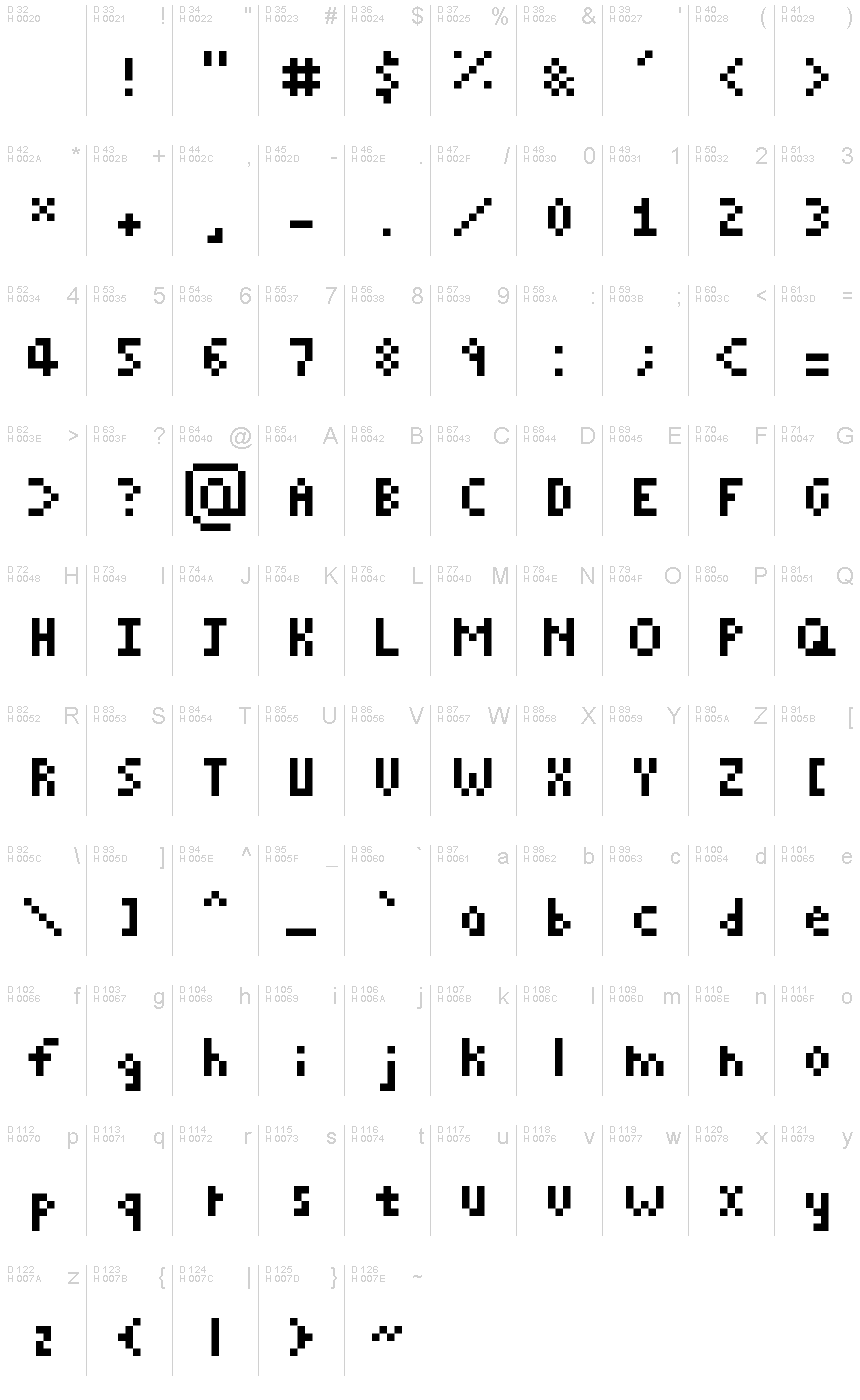
Pixelated Regular
Pixelated, a captivating bitmap font designed by Greenma201, exudes a distinct pixelated aesthetic that immediately captures attention. Its condensed width and sharp, angular forms lend it a retro-futuristic charm, harkening back to the golden age of 8-bit gaming and digital artistry.
This versatile font shines in a range of design applications, from eye-catching headlines and logos to nostalgic game interfaces and retro-inspired branding. Its unique style seamlessly blends the digital and the analog, evoking a sense of playfulness and technological prowess. Pixelated's striking visual impact makes it an ideal choice for designers seeking to create bold, memorable typographic statements.
I always see pixelated fonts, but none of them are good enough. So, I decided to create my own.